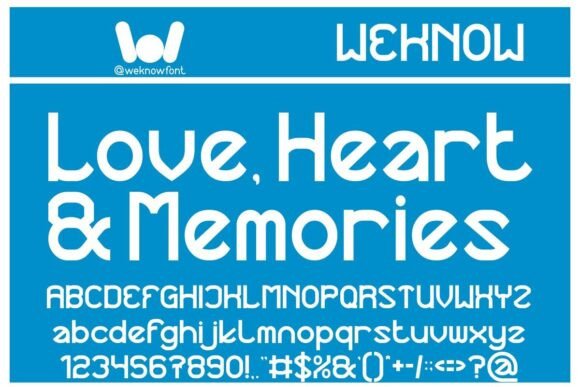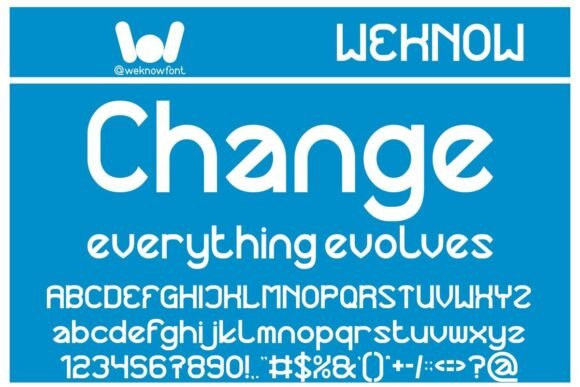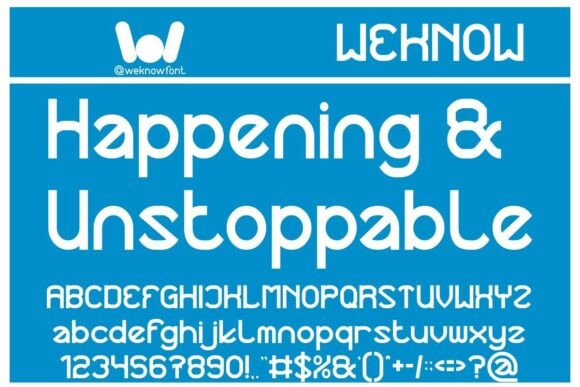
Introduction to Continuous Thing Font
Introducing Continuous Thing, a diverse sans serif font that showcases the perfect balance of modern geometric shapes and playful dynamics.
Whether youβre crafting an enticing headline, defining a brandβs visual language, or injecting personality into your digital content, this futuristic and friendly typeface is perfect for bringing your design vision to life With its distinct features, Continuous Thing is a brilliant fit for the apparel industry, lending itself readily to striking poster designs, captivating music and movie titles, addictive game interfaces, trendy magazine layouts, beautifully bound books, expressive comics, cartoon creations, and engaging social media platforms like YouTube and Instagram.
Key Features of Continuous Thing Font
Why Choose Continuous Thing Font?
Continuous Thing Font offers exceptional quality and versatility, making it a valuable addition to your design toolkit. Whether you’re creating for personal projects or commercial use, Continuous Thing Font delivers professional results.